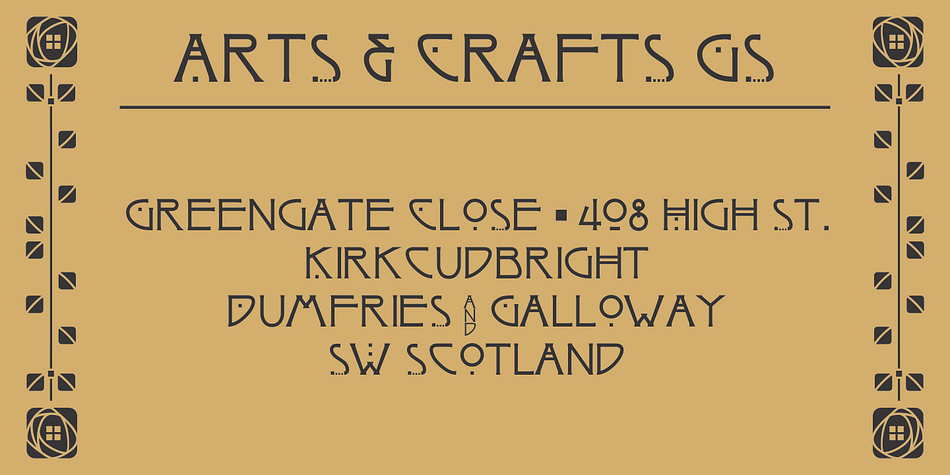
Arts and Crafts-GS is a monograms, dingbat and arts and crafts font family. This typeface has five styles and was published by Bannigan Artworks.
The Arts And Crafts-GS font is loosely inspired by the lettering of Charles Rennie Mackintosh (1868 - 1928) of the Glasgow School, from which Jessie receive her training.